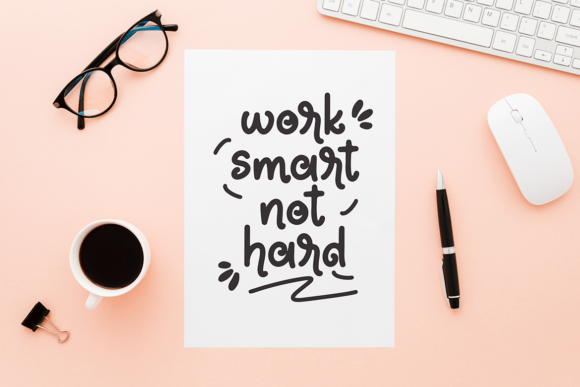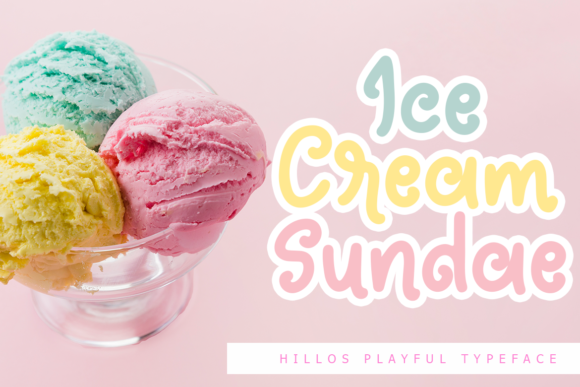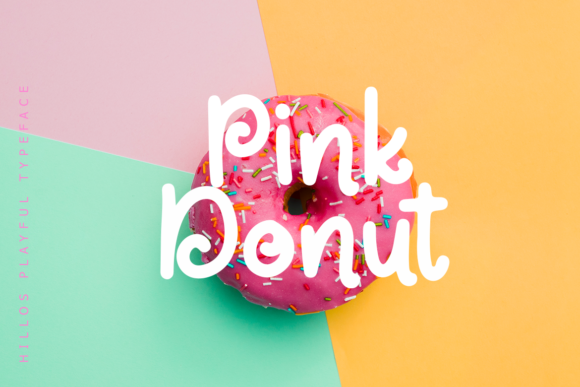
Discovering the Charm of Hillos Font
As a designer, you’ve probably found yourself in a situation where you need a font that exudes warmth and personality. You’re working on a creative project, and you’re struggling to find the perfect match. You scroll through font libraries, but nothing seems to capture the essence of your vision. That’s when you stumble upon Hillos Font – a bold handwritten font that’s about to become your new favorite design resource.
Introduction to Hillos Font
Hillos Font is more than just a font; it’s a statement piece that can elevate any design. With its high-quality, handcrafted design, it’s perfect for designers who want to add a touch of personality to their work. Whether you’re working on a project with a transparent background or need a font that can stand out on a busy design, Hillos Font is the perfect choice.
About Hillos Font
Key Features of Hillos Font
- High-quality design resource ideal for creative projects, offering a unique and elegant aesthetic.
- Features a transparent background, allowing for seamless integration with images and other design elements.
- Includes a wide range of glyphs and characters, making it suitable for various languages and applications.
- Perfect for use in logos, branding materials, and other creative projects where a sophisticated and modern look is desired.
Honest Review: Hillos Font
I recently stumbled upon the Hillos Font and was impressed by its versatility as a design resource. The font is a high-quality addition to any creative project, offering a unique aesthetic that can elevate a design.
One of the standout features of the Hillos Font is its transparent background, which makes it easy to incorporate into various design elements. The font is also available for free download, making it an excellent choice for designers on a budget.
- Unique aesthetic that adds character to designs
- High-quality design that prints well
- Limited font styles and weights available
- May not be suitable for large-scale text or headlines
Overall, the Hillos Font is a solid addition to any design library. While it has some limitations, its unique aesthetic and transparent background make it a great choice for creative projects. I would recommend it to designers looking for a high-quality, free font to add some character to their designs.
Hillos Font: A High-Quality Design Resource
Hillos Font is a versatile and free download, perfect for any creative project that requires a unique and high-quality design element. This font is designed to be easily customizable and can be used with a transparent background, making it ideal for a variety of applications.
Tips for Getting the Most Out of Hillos Font
To get the most out of Hillos Font, try experimenting with different font sizes, styles, and colors. You can also use the font in combination with other design elements to create a unique and eye-catching design.
Hillos Font is perfect for a variety of creative projects, including logos, branding materials, and digital graphics. Its transparent background and high-quality design make it ideal for use in a variety of applications.